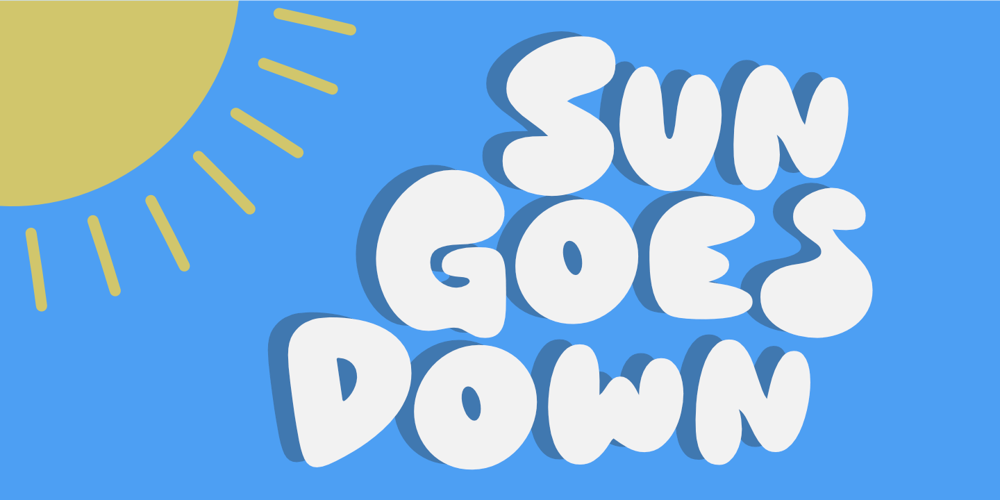
Sun Goes Down Font Family was designed by Aldy Sidik and published by Epiclinez. Sun Goes Down contains 1 styles and family package options. Hey there! Imagine you have a magic marker that makes your drawings look super cool. Well, this font called Sun Goes Down is like that magic marker for designers who make pretty designs on computers. It’s all bold and cute, full of happiness like drawing smiley faces on your homework.Sun Goes Down features : Standard Latin Numbers, symbols, and punctuations Multilingual Support. Fully accessible without additional design software Simple Installations Works on PC & Mac Thank You.